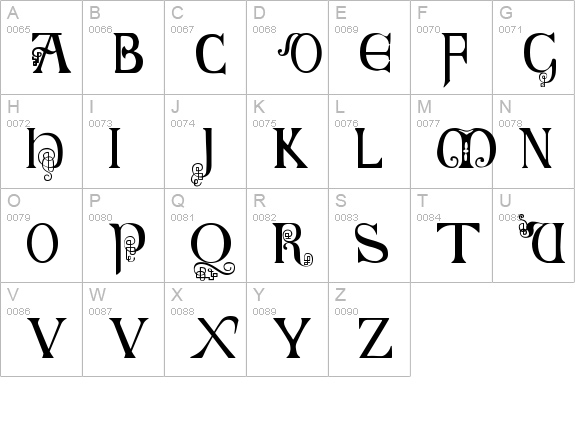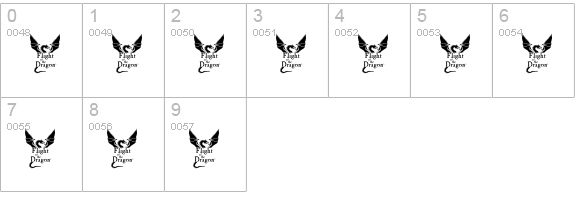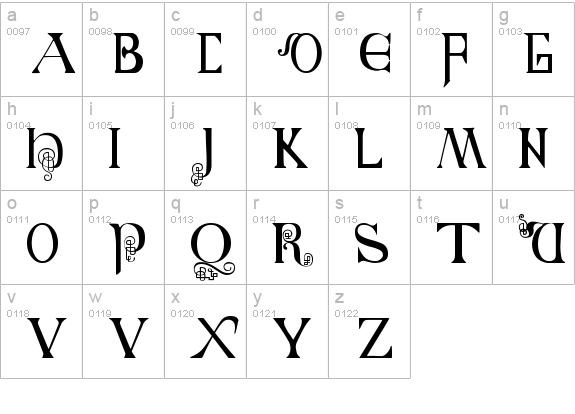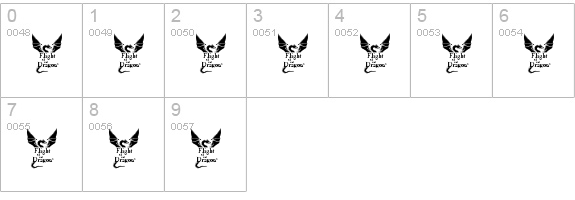
British Block Flourish, 10th c. Font Details
The British Block Flourish font, inspired by 10th century calligraphy, exudes a timeless elegance and sophistication. Its intricate details and ornate flourishes make it a perfect choice for projects that require a touch of historic charm. The font captures the essence of medieval manuscript writing while adding a modern twist with its clean lines and bold presence. British Block Flourish is a versatile typeface that can be used for a wide range of design projects, from invitations and wedding stationery to branding and packaging. Its classic yet contemporary aesthetic makes it a favorite among designers looking to add a touch of sophistication to their work. What's even better is that British Block Flourish is freely available for download at FontsMarket.com. Whether you're a seasoned designer or just starting out, this font is a valuable addition to your collection. Embrace the beauty and artistry of the 10th century with British Block Flourish and elevate your designs to new heights.